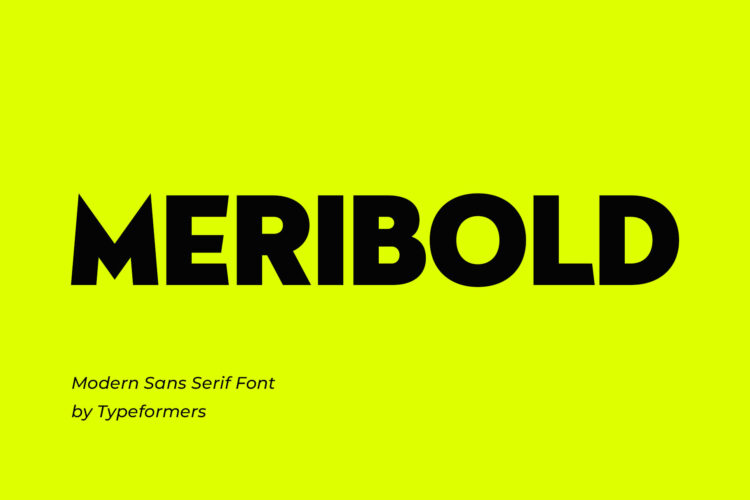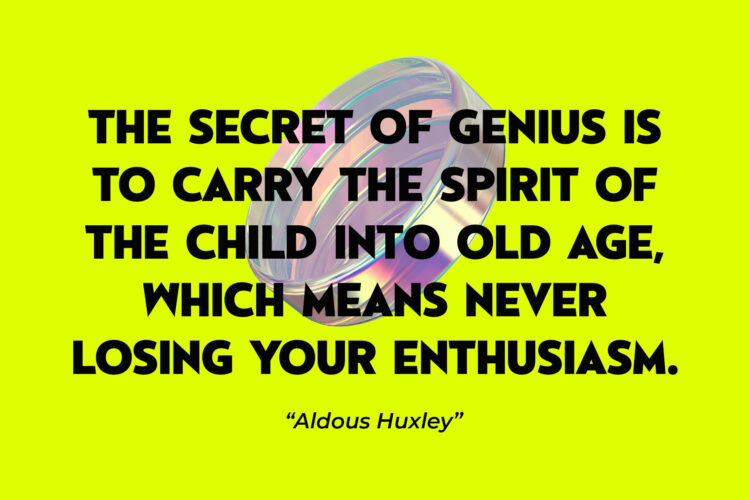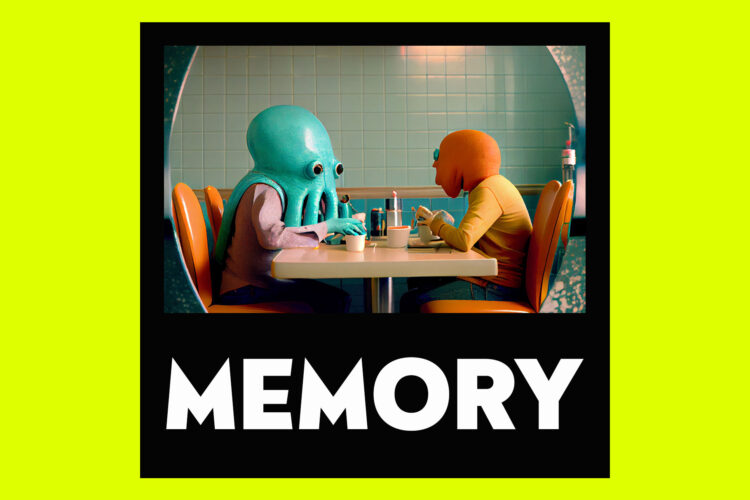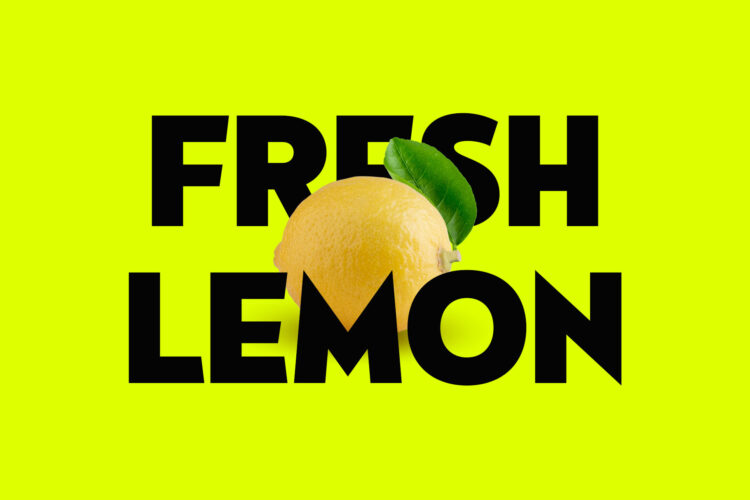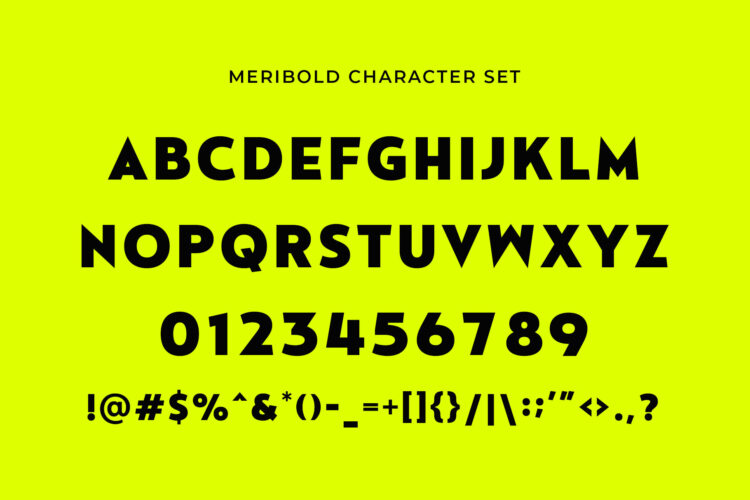
Introducing Meribold – Modern Sans Serif.
Meribold is a modern and simple font, best used as a display for headings, logos, branding, magazines, product packaging and invitations.
Meribold – Modern Sans Serif